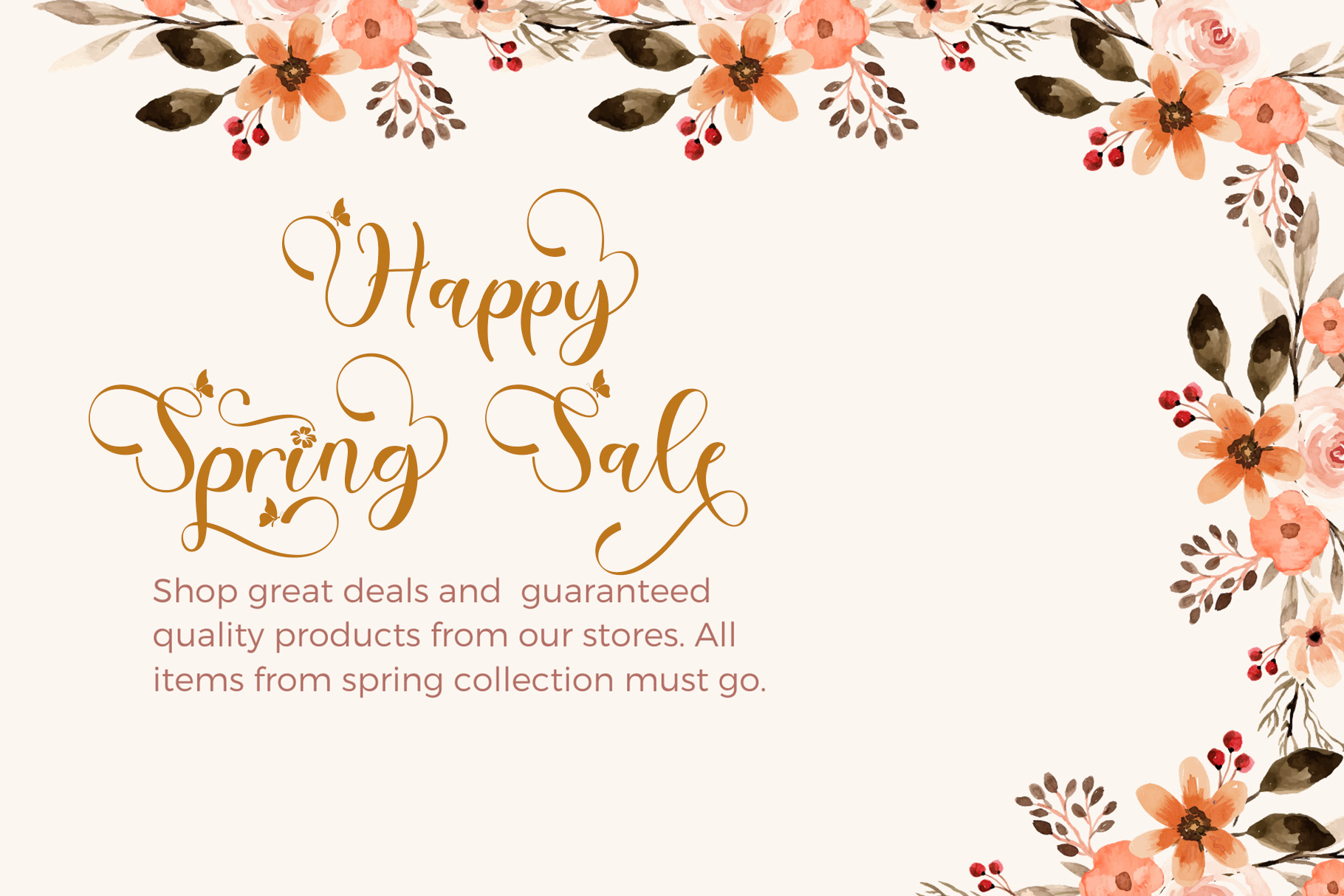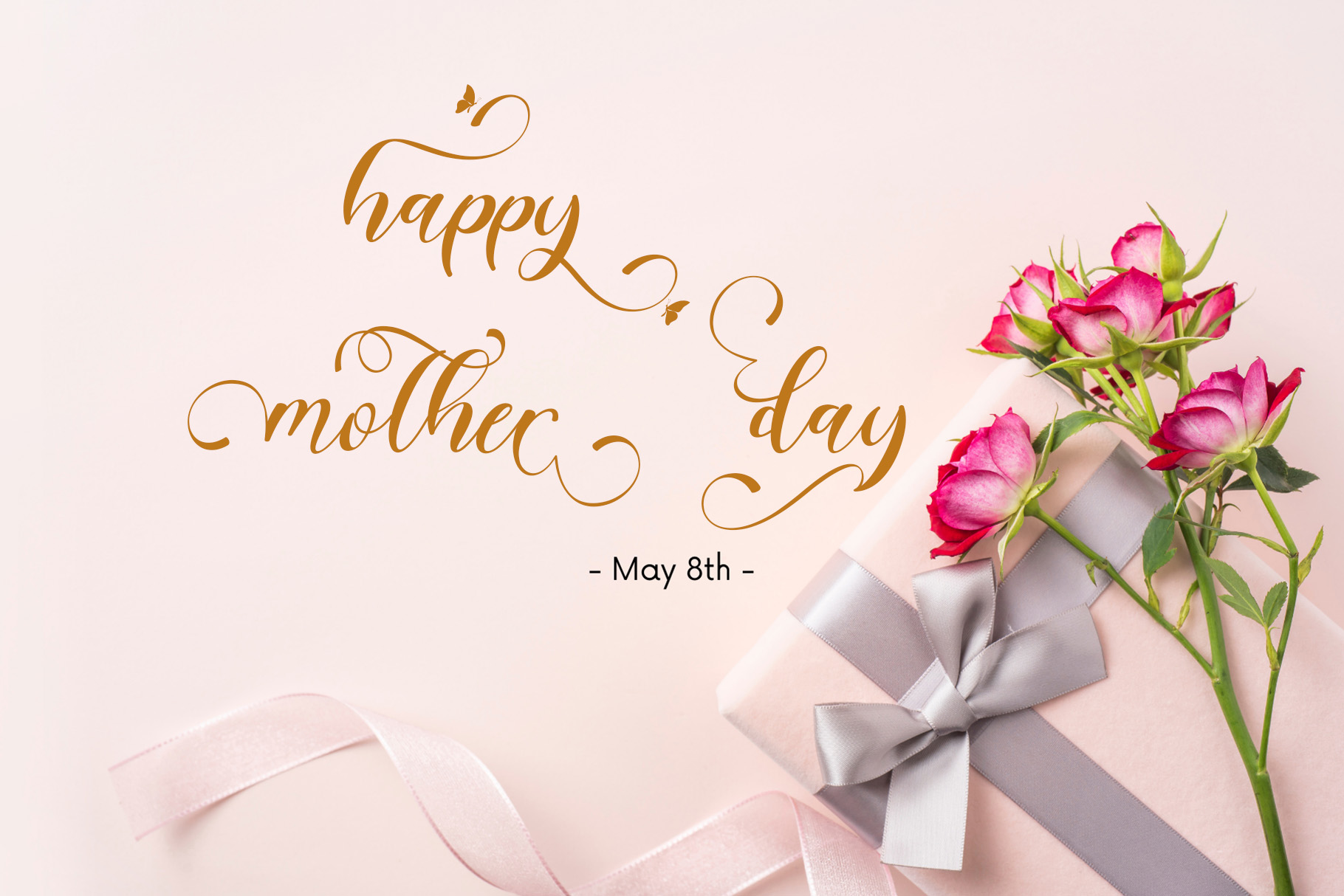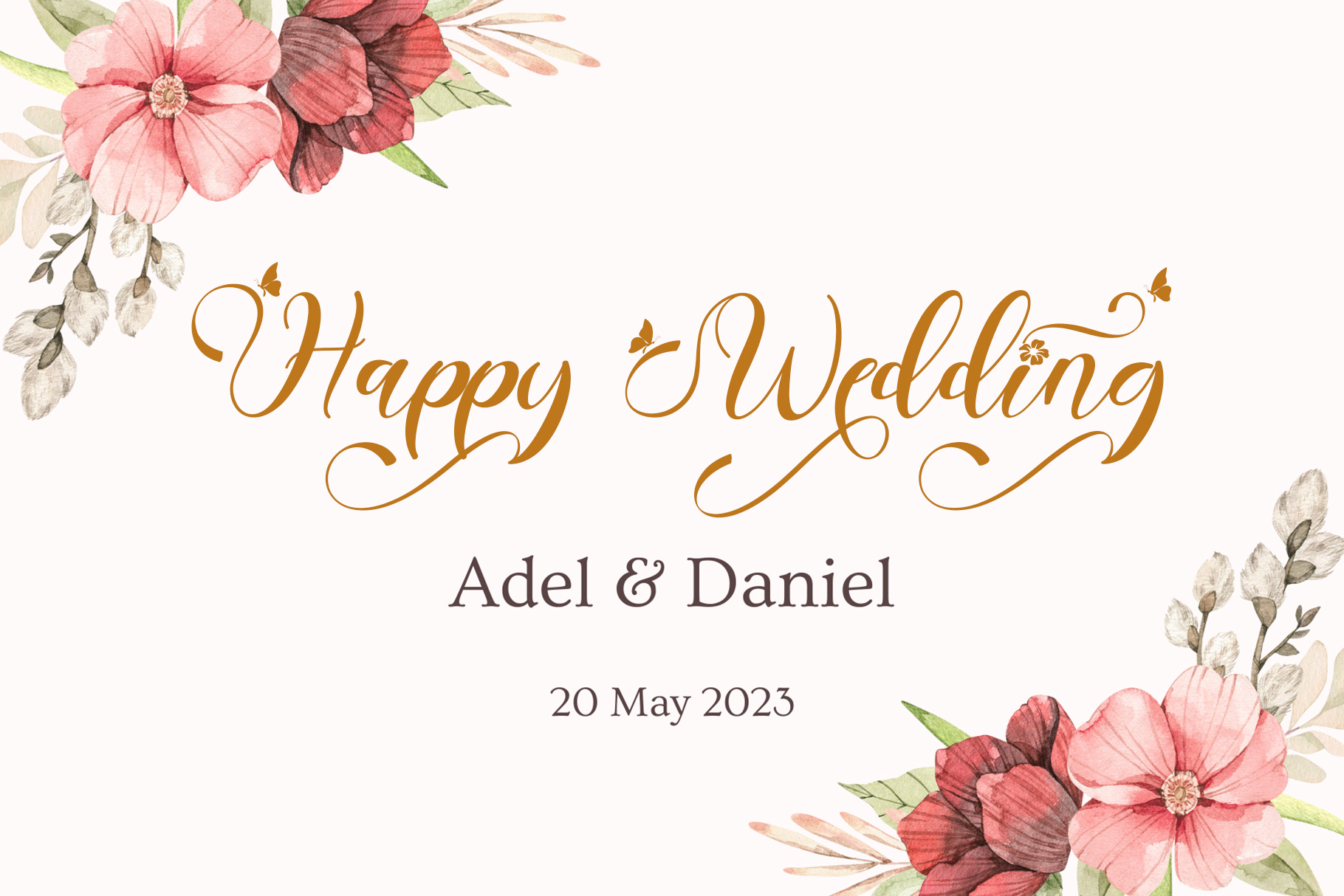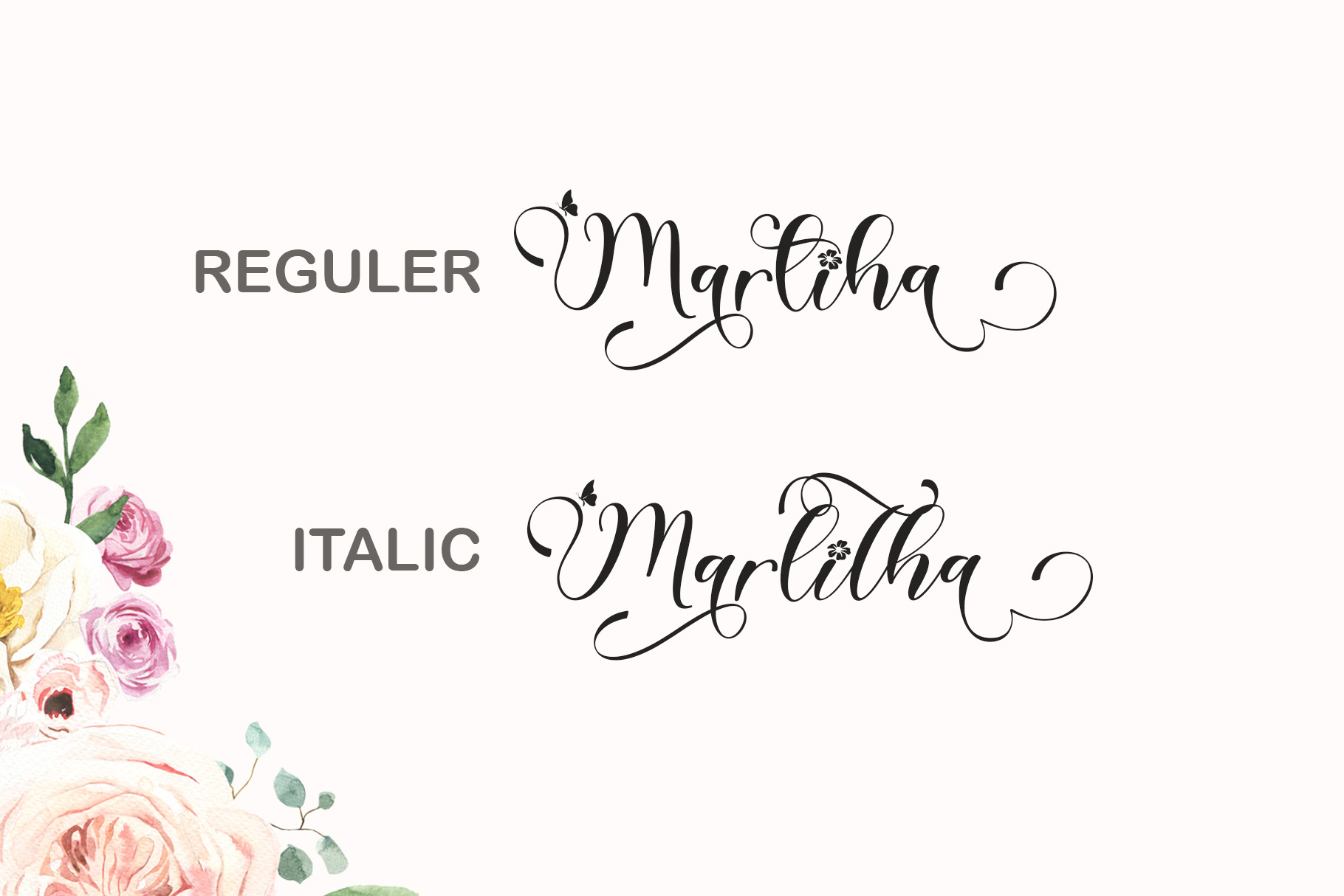
Beautiful Spring Font
Beautiful Spring Script Font
It’s a beautiful, unique and natural font. This font is equipped with uppercase, lowercase, swash, titling, alternates, ligatures, multilingual support, numerals and punctuations. “Beautiful Spring” is perfect for spring, summer, autumn, christmas, winter, valentine, mother day, wedding, photography and other moments.